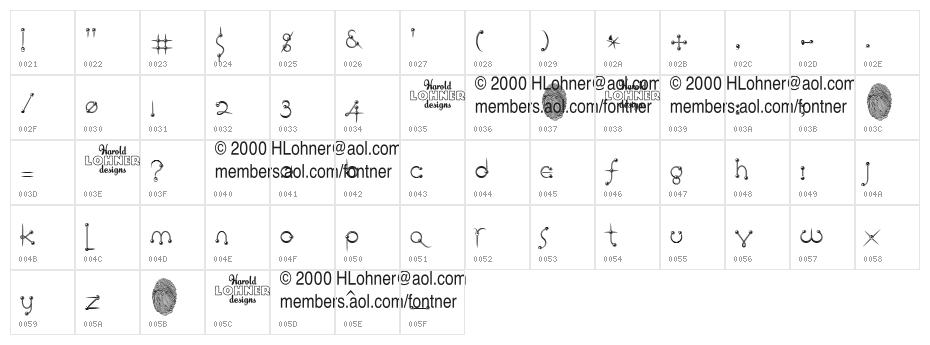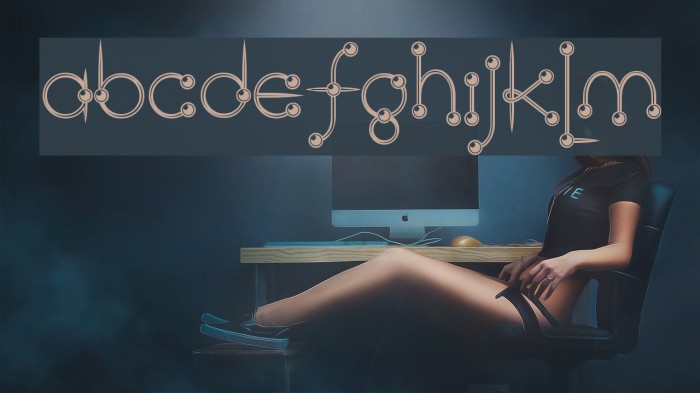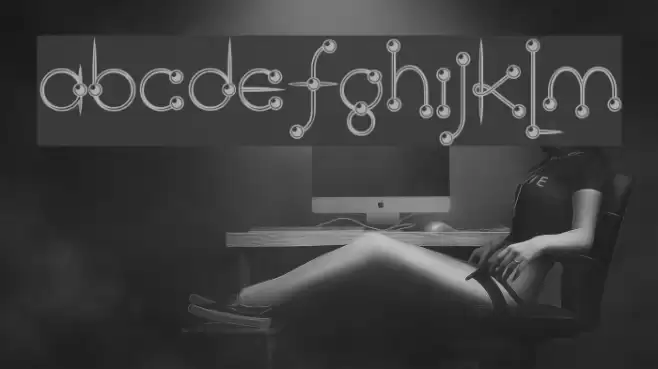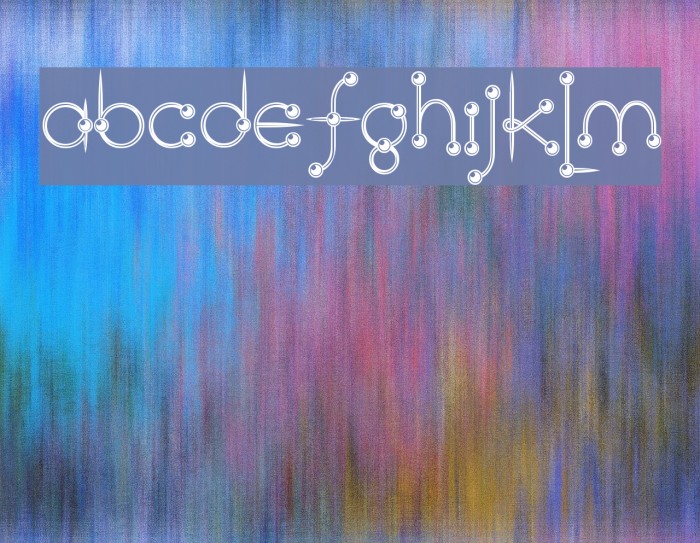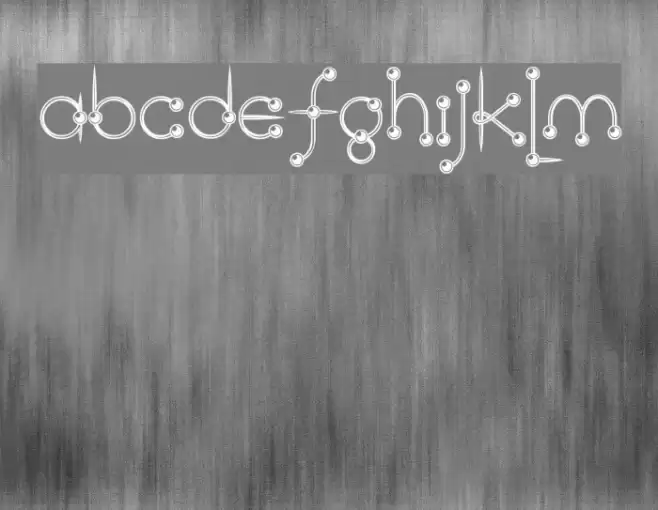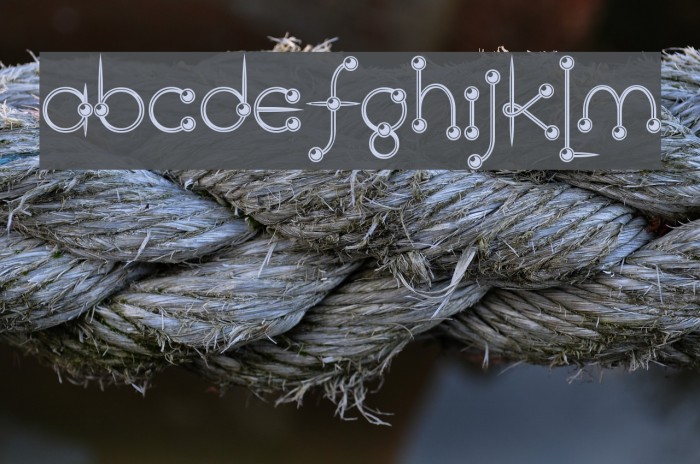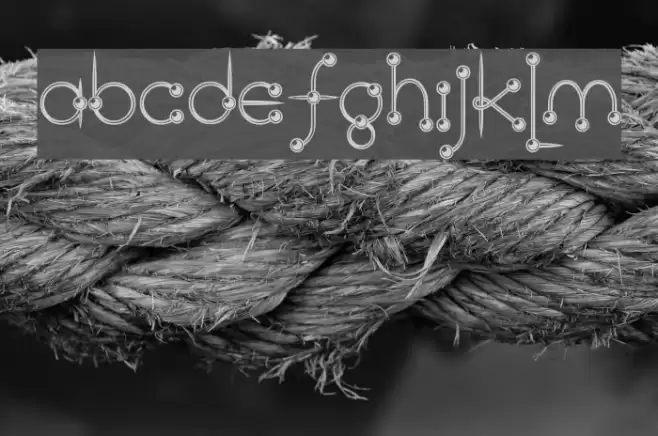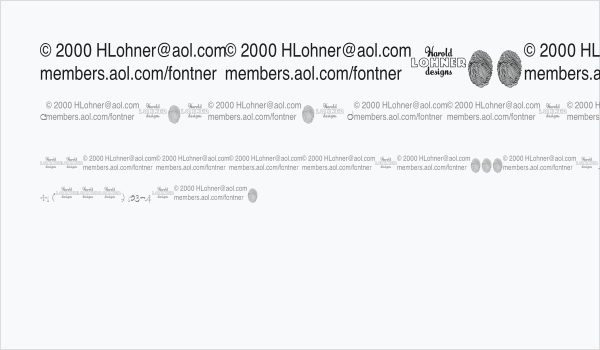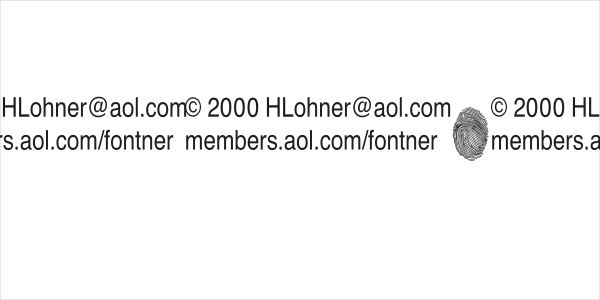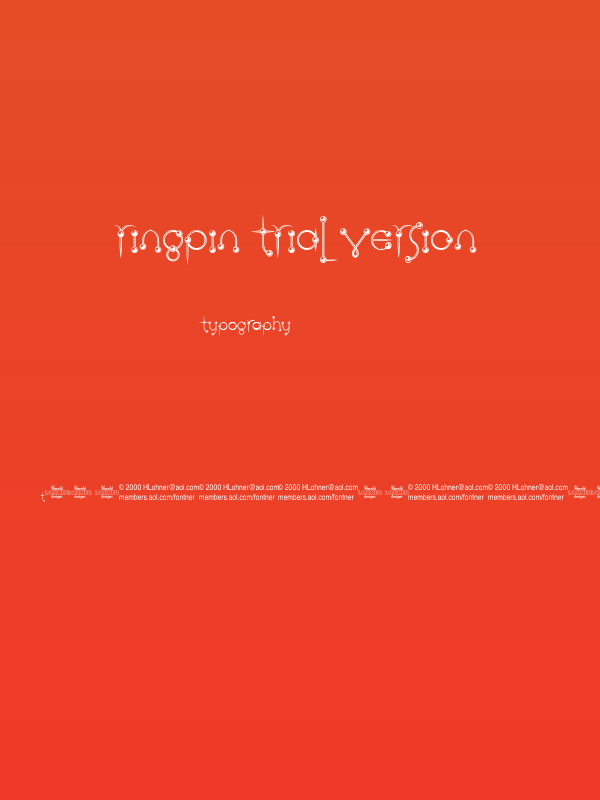
ringpin trial version Font
ringpin trial version Description
This font features a unique and decorative style, characterized by its intricate design elements that resemble rings and pins. Each letter is crafted with a combination of circular and linear elements, giving it a distinct and ornamental appearance. The font includes both uppercase and lowercase letters, numbers, and a variety of special characters. Its playful and artistic design makes it stand out, with each character appearing as a small piece of art. The font's detailed and elaborate style suggests a handcrafted quality, making it suitable for creative and expressive projects.
| Use Case | Logos, Posters, Invitations |
| Proposed Projects | Ideal for creative projects such as invitations, posters, and artistic branding where a unique and decorative touch is desired. |